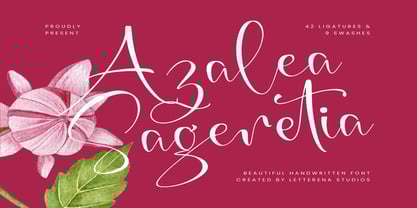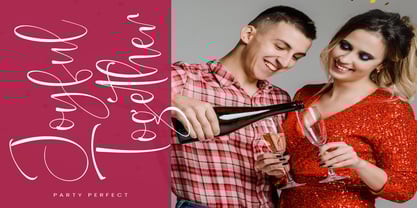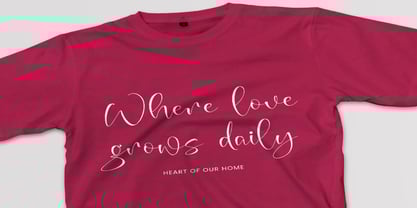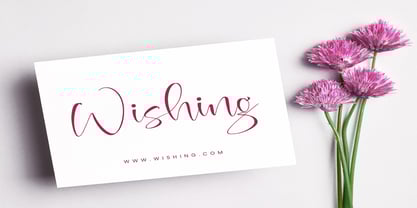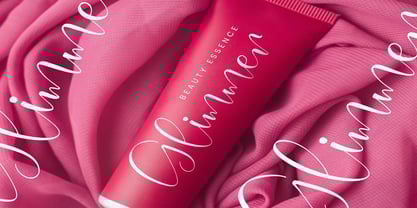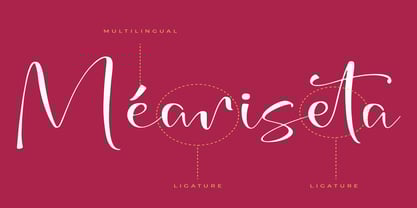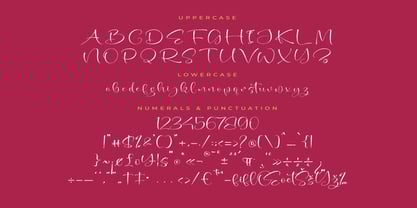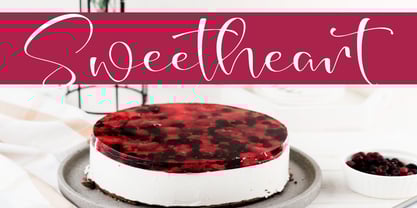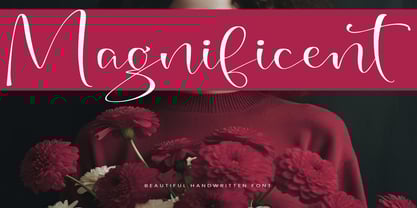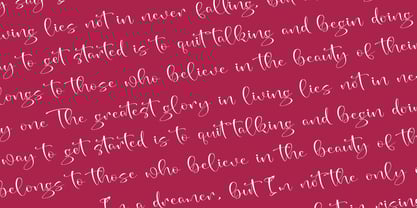
Azalea Sageretia
The Azalea Sageretia Font Family was designed by Heru Utama Putra and published by Letterena Studios. Azalea Sageretia contains 2 styles and family package options.
Azalea Sageretia – Beautiful Handwritten Font , from Letterena, is a Luxury Script font, suitable for any projects such as: logos, branding projects, homeware designs, product packaging, mugs, quotes, posters, shopping bags, t-shirts, book covers, name card, invitation cards, greeting cards, label, photography, watermark, special events, and all your other luxury and beautiful projects that need a Luxury Script taste.